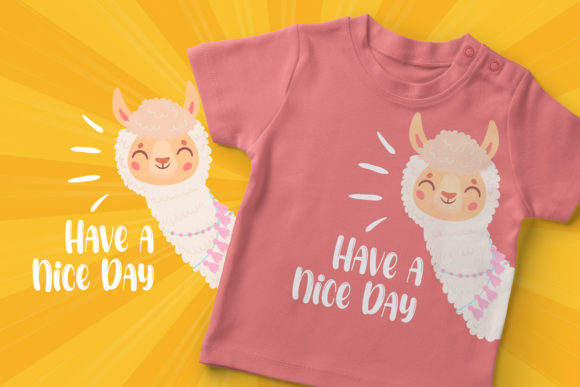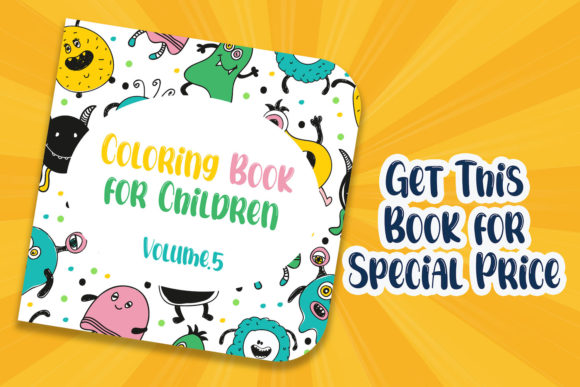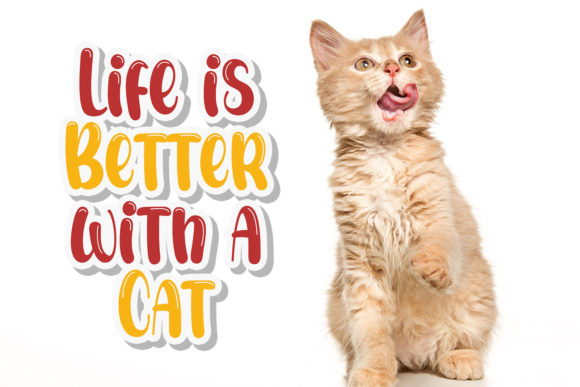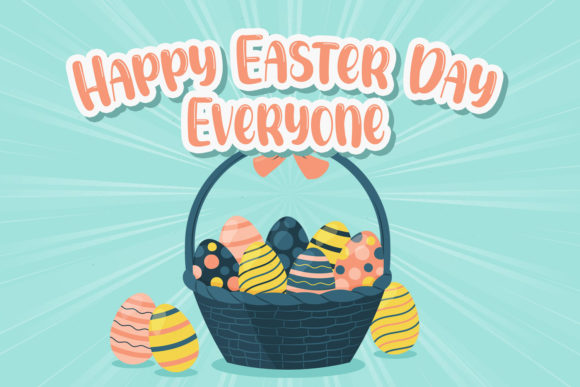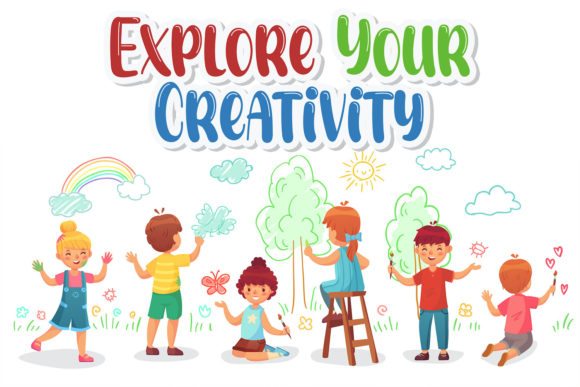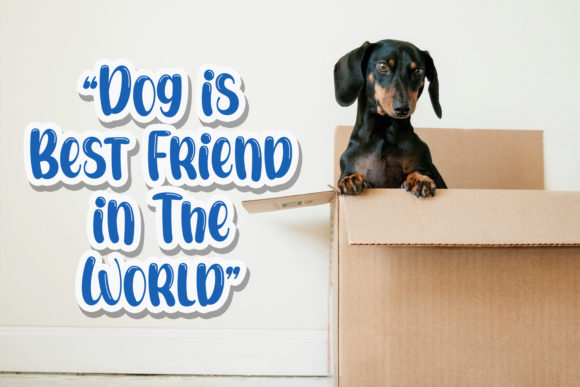
Discover the Joy of Creativity with the Bubble Shine Font
Have you ever found yourself doodling in the margins of a notebook, lost in a world of whimsical shapes and playful lines? That’s exactly where the magic happens for designers like us – in the moments of pure creativity. It’s a spark of inspiration that can turn a mundane task into a work of art. And for those of us who live for that feeling, there’s a new font that’s about to become our best friend: the Bubble Shine Font.
This adorable display font is all about adding a touch of whimsy to your designs. Whether you’re creating a web design, business card, or anything in between, the Bubble Shine Font is the perfect way to add a dash of personality to your work. Its unique style makes it a valuable asset for designers who want to stand out from the crowd and bring a smile to their audience’s faces.
Bubble Shine Font Key Features
- Font Type: Sans-Serif, with a modern and playful touch
- Unique Characteristics: Features a unique, hand-drawn design with a bubbly and shiny texture, adding a touch of whimsy to any text
Bubble Shine Font Review
Overall, I think Bubble Shine Font is a visually appealing choice for any project. ✨ The bubbly and playful style of the font works well in contexts where you want to add a touch of whimsy and fun.
Here are some specific things that I think work well:
- The font is highly legible, even at smaller sizes.
- The rounded edges and smooth curves make it easy to read and enjoyable to look at.
- It’s versatile and can be used in a variety of contexts, from logos to headings to body text.
However, there are some limitations to keep in mind:
- The font may be too playful for more formal or professional contexts.
- It may not be the best choice for projects that require a lot of text, as it can be a bit overwhelming.
- The font may not be suitable for use in small text sizes, as it can become difficult to read.
Overall, I think Bubble Shine Font is a great choice for projects where you want to add a touch of fun and playfulness. It’s a great option for designers who want to create eye-catching and engaging designs. However, it may not be the best choice for every project, and it’s always a good idea to consider the context and audience before making a final decision.
For best results, use the Bubble Shine Font for titles, headings, and other emphasis text.
It’s ideal for creating a playful, whimsical atmosphere in designs.